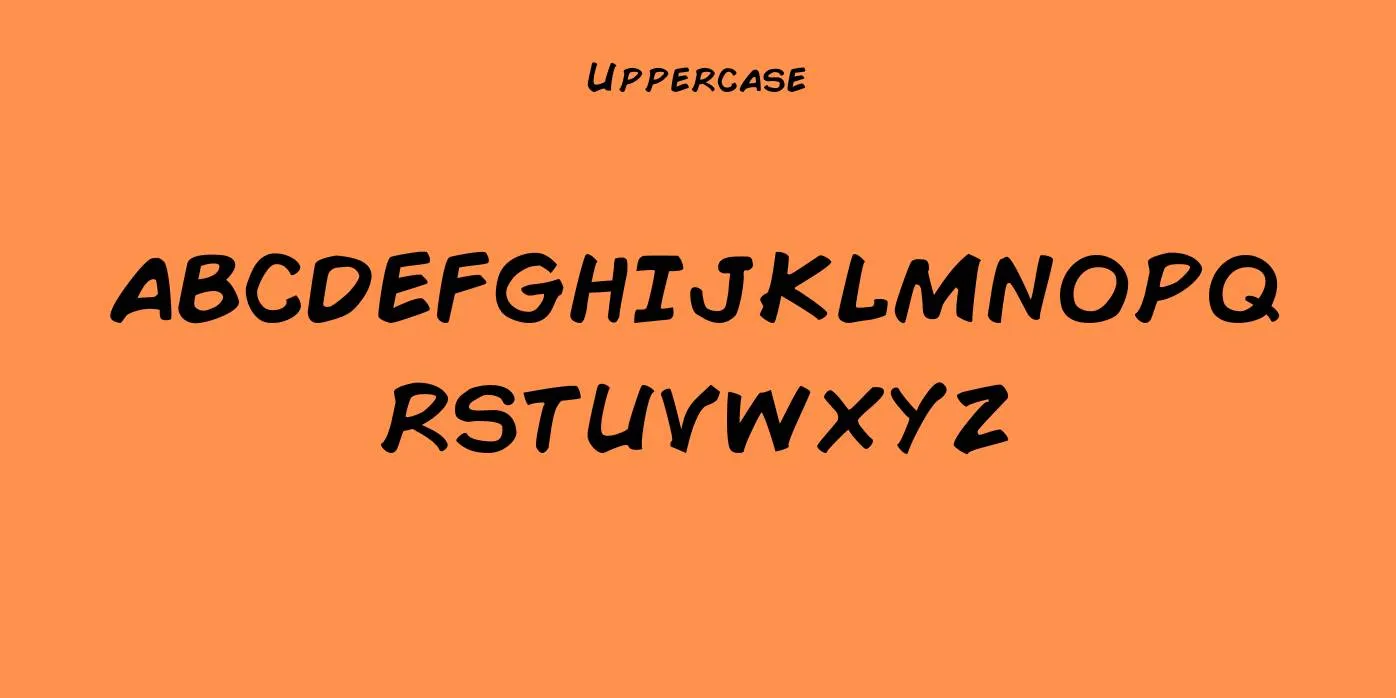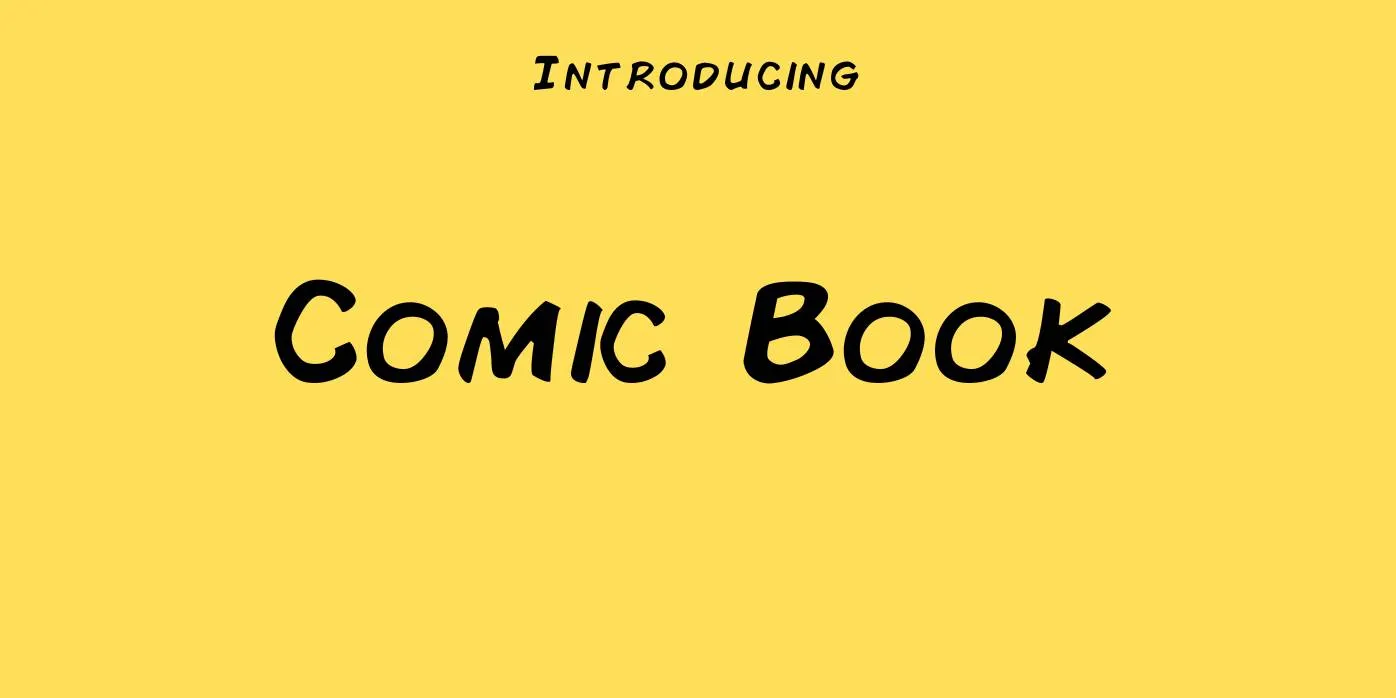
Comic Book Font
Comic Book Font is designed by Neale Davidson and manufactured by Pixel Sagas. You can use this font for making different and amazing projects. This typeface has different features which makes it perfect for many projects. It is a very nice fancy font.
Usage It is a very fancy font and can be used so many different projects. It has characters, symbols, numbers, capital letters, special characters, and punctuation You can make attractive design headlines by using this font. It can be read easily even in small sizes. It can be used in designing comic book story covers, fashion magazines, and novels For making kids-related items to add fun elements to your projects you can use this font as well.
Who is the designer of the Comic Book? Comic Book Font is designed by Neale Davidson and manufactured by Pixel Sagas. You can use this font for making different and amazing projects. What Google font looks like a comic book?